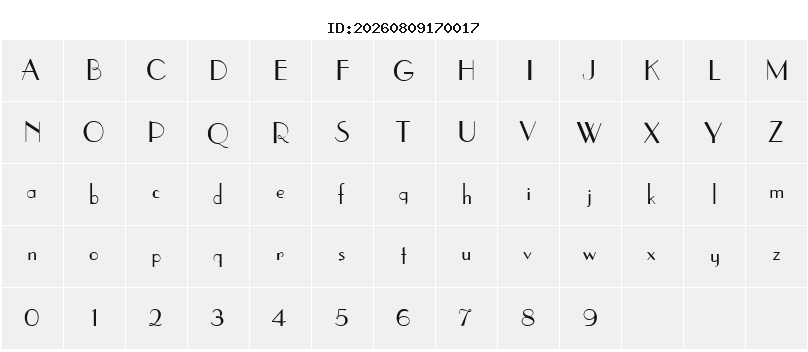
• Font Name: ParisianT
• Font ID: ParisianT Regular
• Full Font Name: ParisianT
• PostScript Name: ParisianT
About ParisianT.ttf
ParisianT.ttf is a modern, elegant sans-serif font designed for ultimate readability and visual harmony. Perfect for branding, headlines, web design, and print materials.